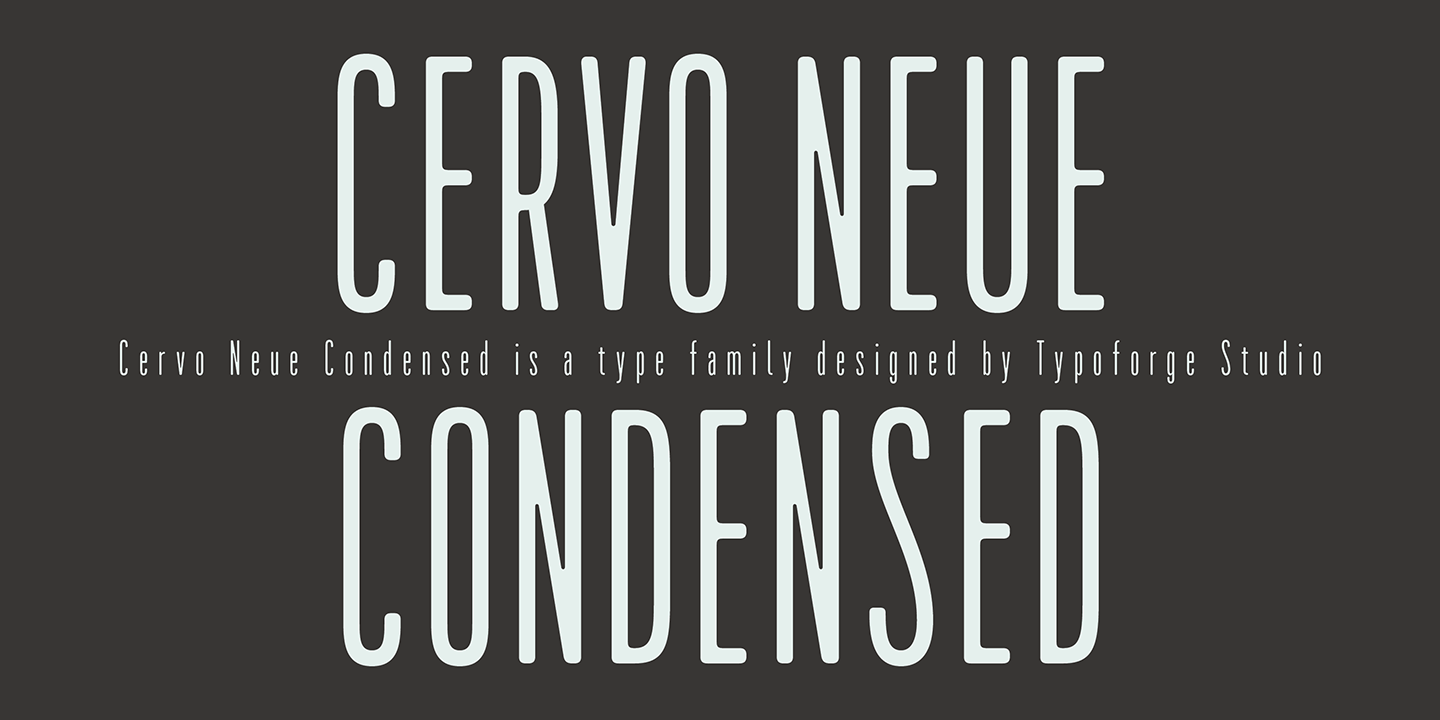
The Cervo Neue Condensed Font is perfect for space-efficient design projects including newspaper headlines, magazine column layouts, vertical banner advertisements, narrow signage systems, mobile interface design, compact product packaging, editorial sidebars, and dense information displays. This streamlined typeface maximizes readability while conserving precious horizontal space in any design project requiring efficient typography solutions.
What makes Cervo Neue Condensed Font so exciting is its sophisticated approach to space optimization that maintains elegant proportions while delivering exceptional clarity in narrow formats. The letters feature refined condensed characteristics with carefully balanced spacing that ensures excellent legibility even in tight layout constraints. This distinctive efficiency makes it perfect for projects that want to communicate professionalism and modern design sensibility while working within spatial limitations.
The Cervo Neue Condensed Font family typically includes multiple weights from light to bold, complete with matching italic variations and ultra-condensed options. Many versions feature extensive language support, professional OpenType features, and optimized spacing metrics that enhance its performance for editorial and interface design applications.
Whether you're designing for publications, urban environments, or digital interfaces, Cervo Neue Condensed Font Free Download offers the perfect solution for projects requiring maximum information density without sacrificing typographic quality. This font transforms cramped layout challenges into elegant, readable designs that immediately communicate efficiency, sophistication, and contemporary design excellence to audiences appreciating smart spatial solutions.